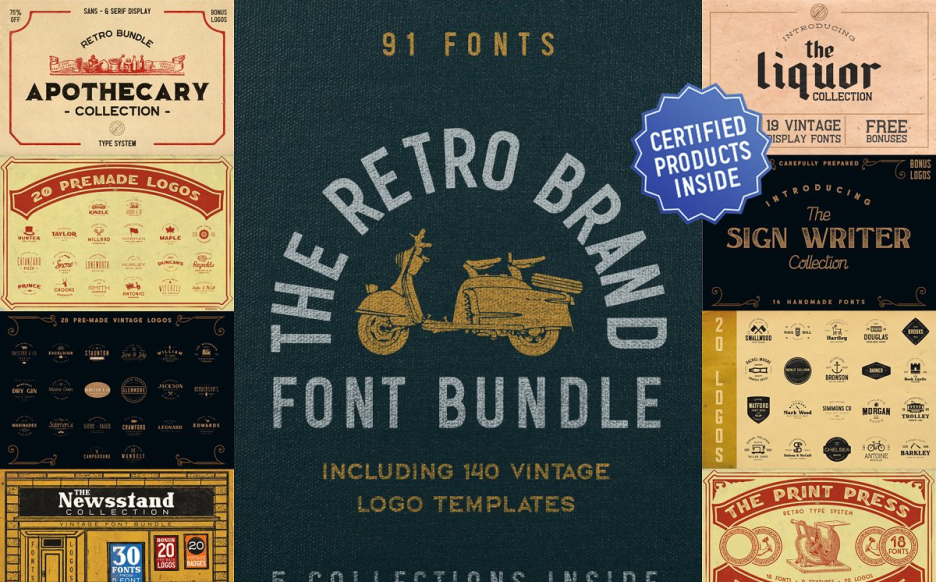
The Retro Brand Font Bundle
The Retro Brand Font Bundle is a carefully curated collection of vintage-inspired typefaces designed to elevate your creative projects. This bundle features a variety of font styles, including bold display fonts, elegant scripts, and playful sans-serifs, each crafted to convey a sense of nostalgia and charm.
• Multiple font styles: Display, script, and sans-serif
• Rich character sets for multilingual support
• Variety of weights for versatile usage
• Easy to read at various sizes
Ideal for branding, logo design, web graphics, and print materials, the Retro Brand Font Bundle will add a unique touch to your projects.